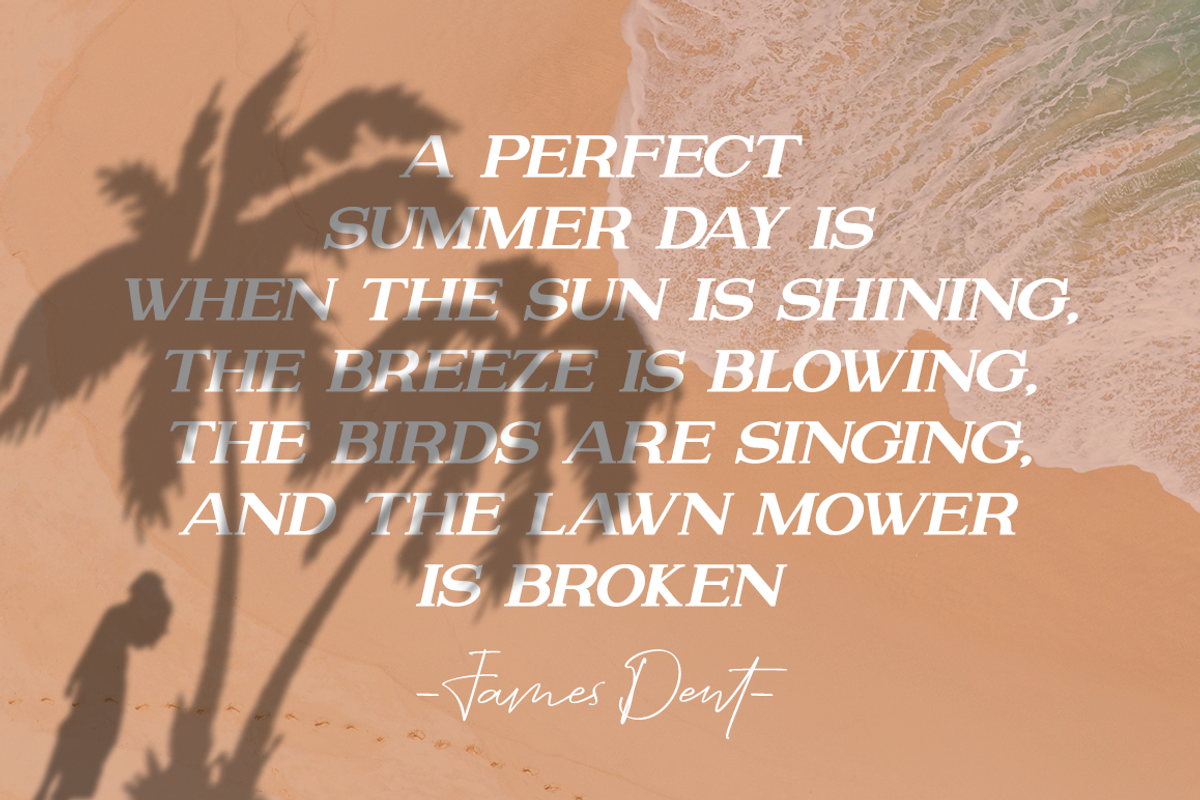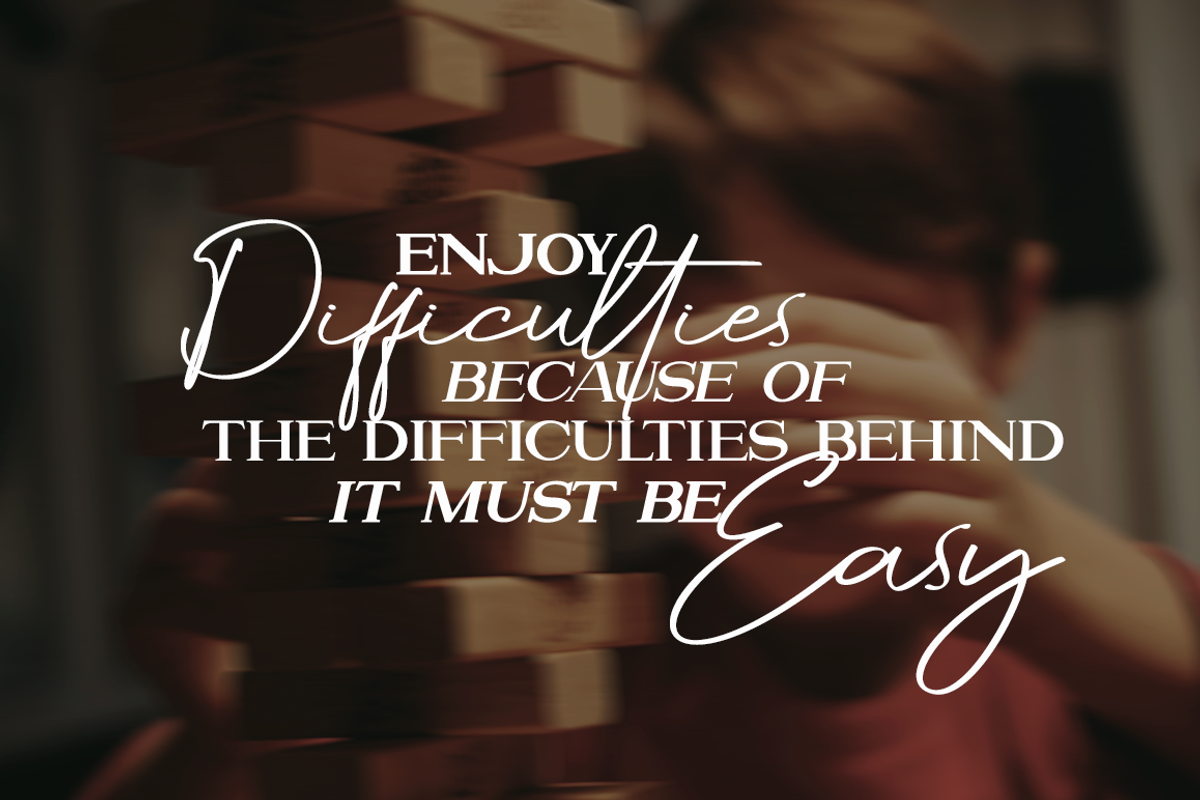
Attention l Combine with Extra Bonus
I would like to introduce my new collection with the name Attention
Attention is a beautiful brand font duo that makes for gorgeous logos, posters, wedding invitations, blog posts, social media, and more!
I love using them together with layer masks in Photoshop, so it looks like the script is running through the lines of the serif. The serif looks stunning with tracking set to 100 or more, as well as where it falls normally at 0!
Attention Script includes over 30 ligatures to make everything look totally hand-done.
Ligatures in script
Numbers + Punctuation
Non-English support